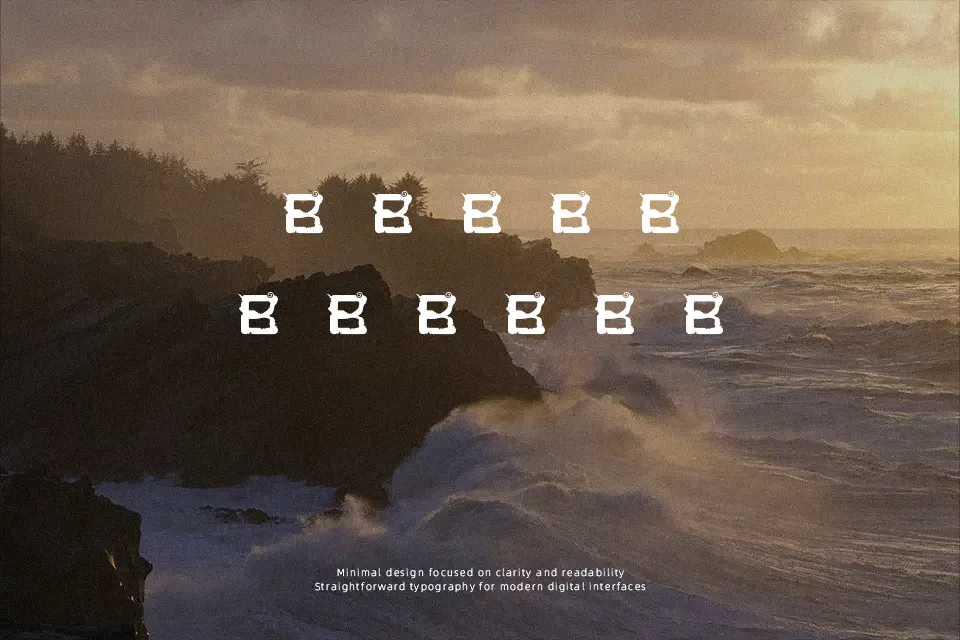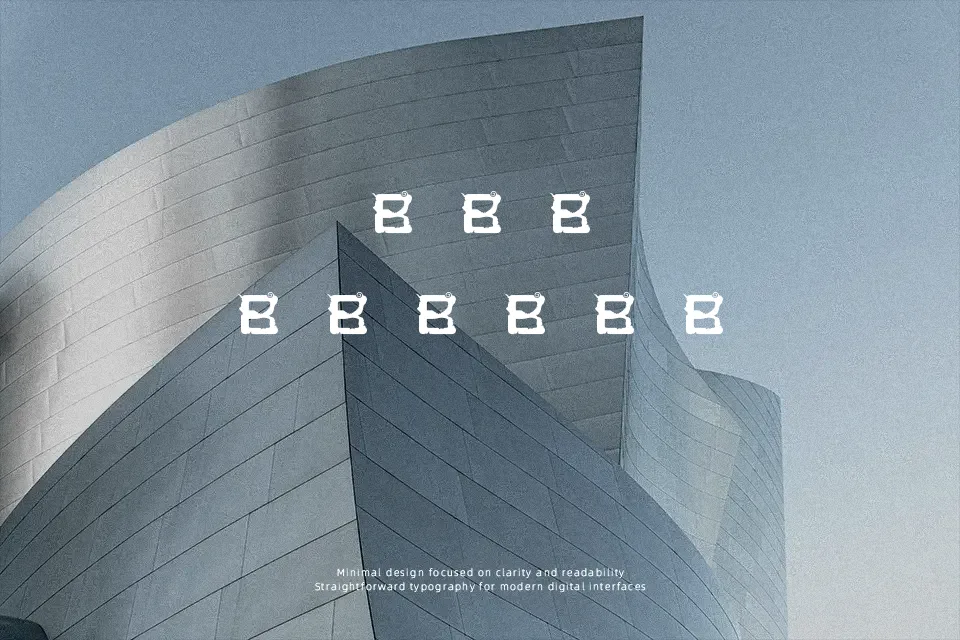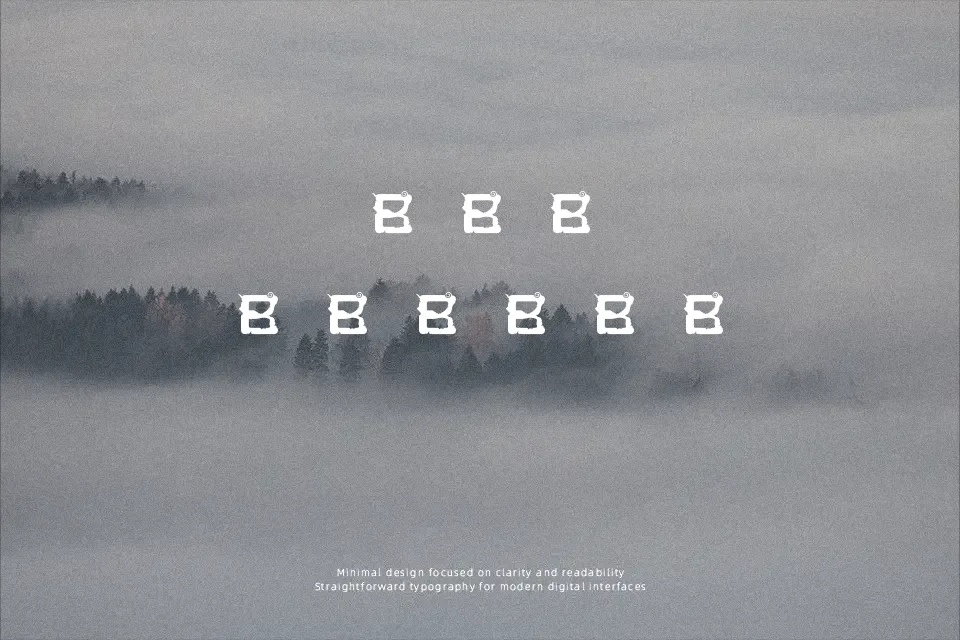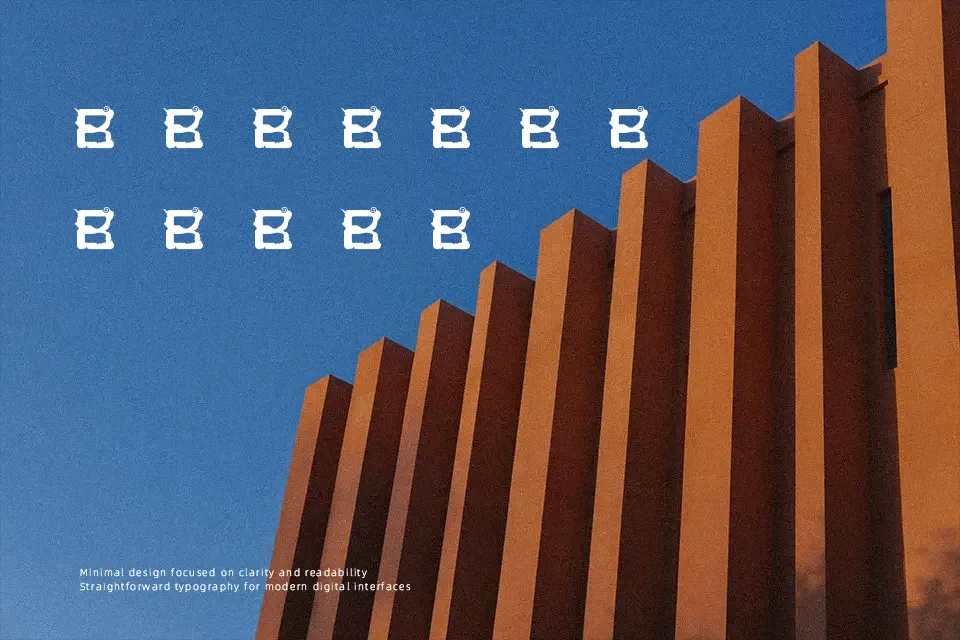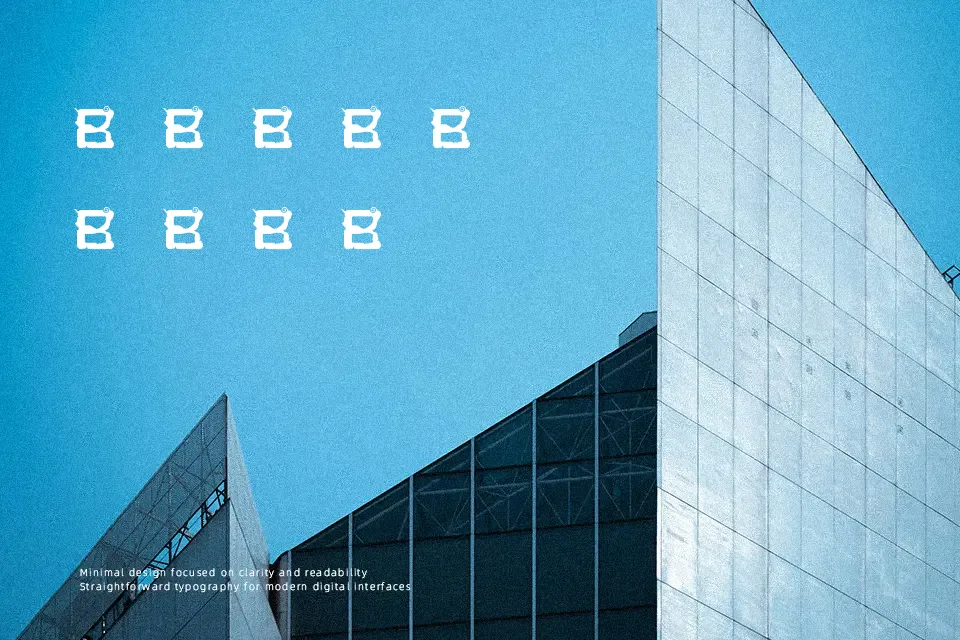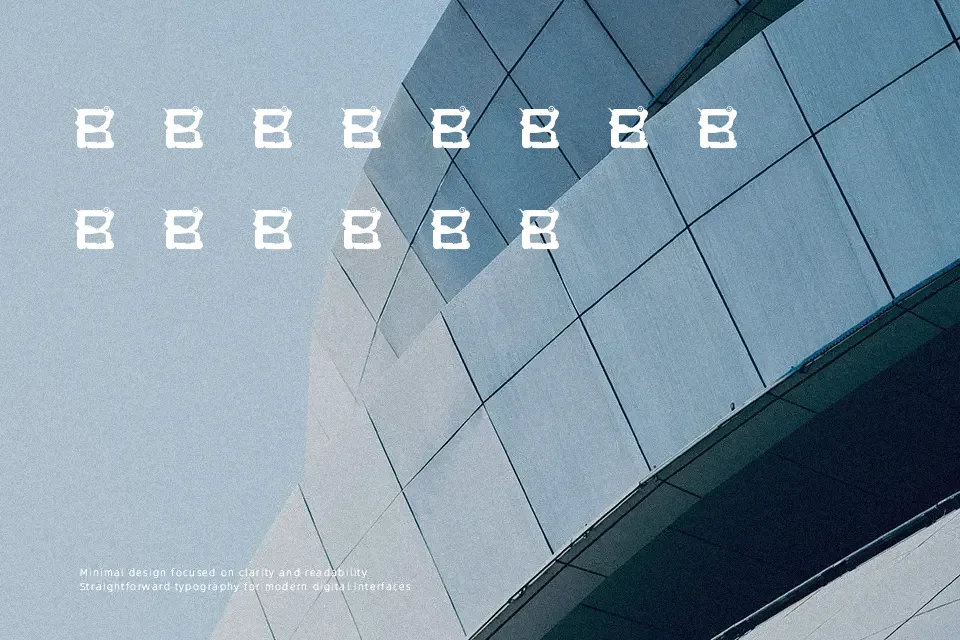
99% BadbOy Font
Designed by Habib Shaikh
The lettering here feels like it was scrawled with intent — uneven baselines, thick irregular strokes, and a deliberately rough finish give 99% BadbOy its signature rebellious character. It reads as casual-aggressive, somewhere between graffiti tagging and marker-written zine headers. That rawness works strongly in short bursts: a band name lockup, a streetwear drop label, or a gaming username graphic all benefit from its unfiltered energy. Where it falls apart is anywhere legibility matters at small sizes or in dense copy — the irregular stroke weight makes it genuinely hard to read below 24pt. If your layout needs breathing room and impact, this font earns its place; if you need clarity or professional neutrality, look elsewhere.
– streetwear apparel graphics and drop labels
– indie music artist branding and album titles
– gaming channel headers and thumbnail text
– youth-targeted event posters
– body text or any multi-line paragraph setting
– corporate or professional business materials
– small-size usage such as footnotes or captions
– formal invitations or editorial layouts
Perfect for branding, gaming, and logo, with a bold and display style.